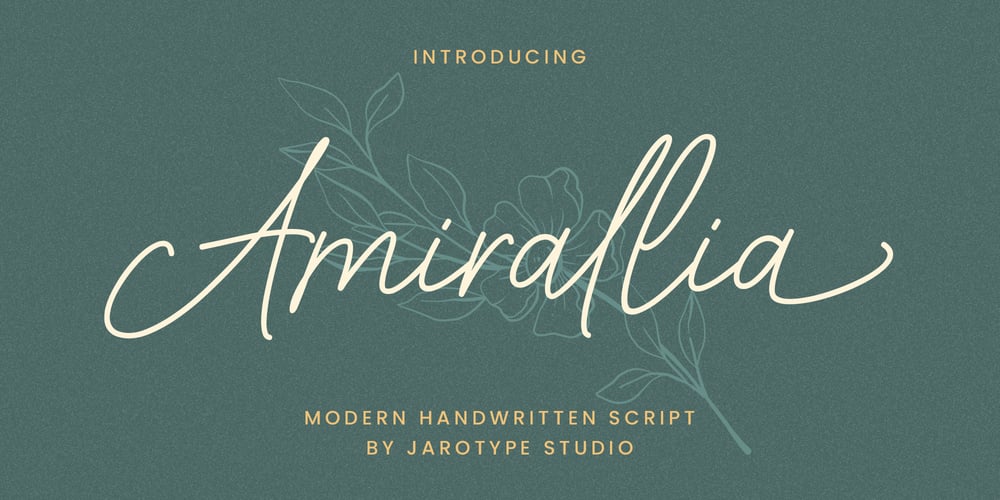
Amirallia
Amirallia font
Amirallia Font Family was designed by Rizaldi Wandani and published by Jarotype. Amirallia contains 1 styles and family package options. Introducing Amirallia, a monoline script font full of character and a few twists. It has the clean minimalism of a monoline font and the originality of handwriting. This font is PUA encoded which means you can access all glyphs and swashes effortlessly!